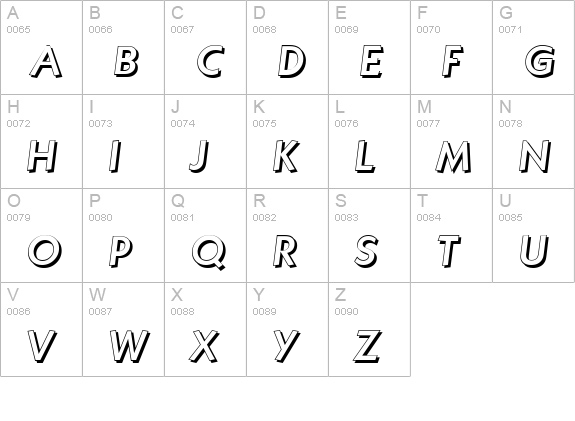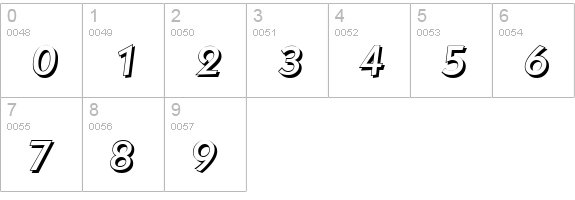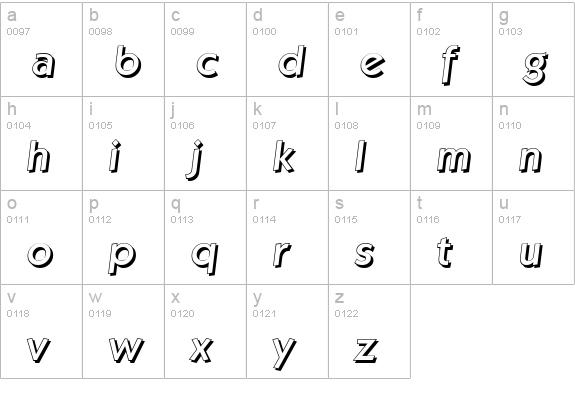
KoblenzShadow-Medium-Italic is a balanced, medium-weight, italic variant in the KoblenzShadow typeface family \xE2\x80\x94 well suited to sub-headlines, navigation, and balanced editorial work.
KoblenzShadow-Medium-Italic is a dynamic and modern typeface that adds a touch of sophistication to any design project. Its sleek lines and elegant curves make it a perfect choice for branding, logos, and editorial design. The italic style adds a sense of flair and movement to your text, making it stand out from the crowd. What's even better is that KoblenzShadow-Medium-Italic is available for free download at FontsMarket.com. This means that you can easily access this stylish font and incorporate it into your creative projects without any cost. Don't miss out on the opportunity to elevate your designs with KoblenzShadow-Medium-Italic – download it today and let your creativity shine!